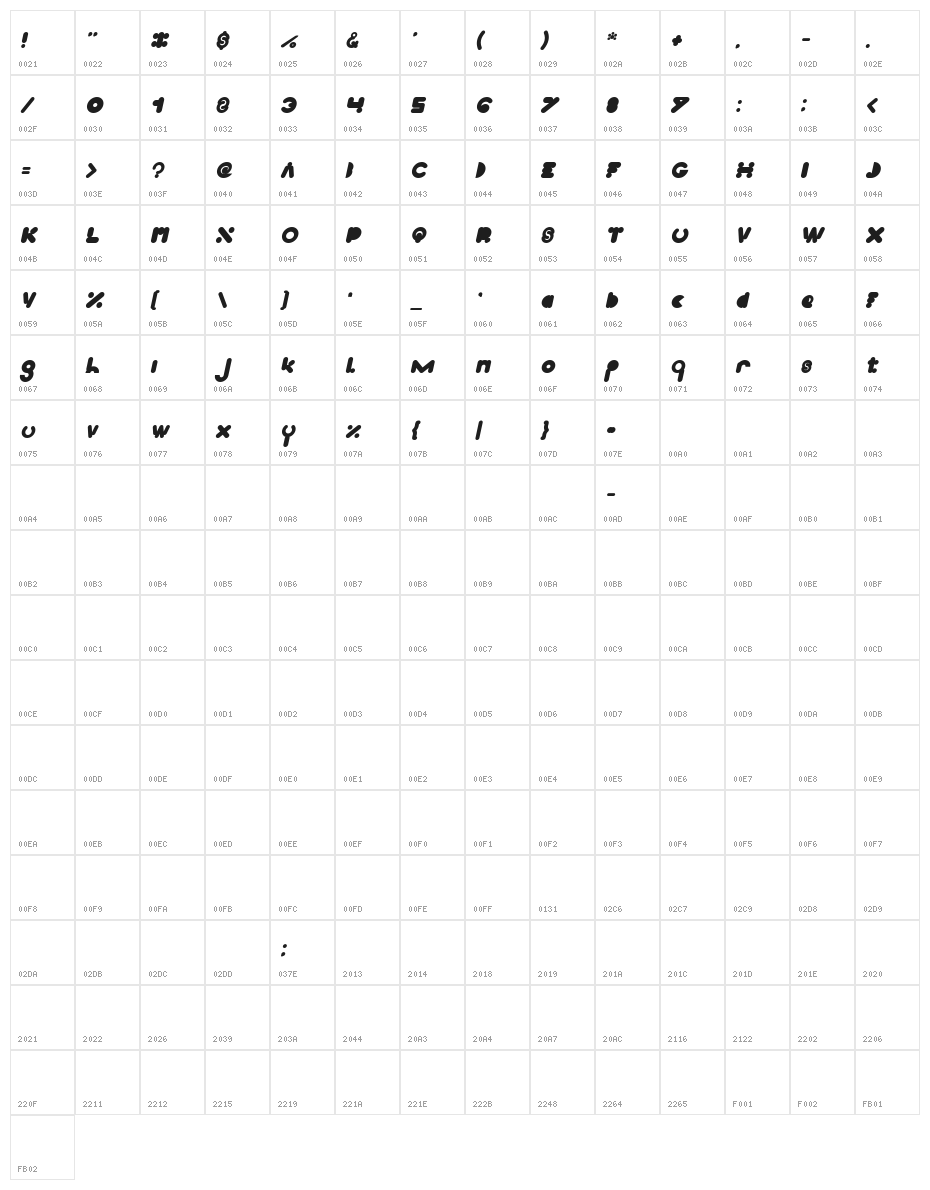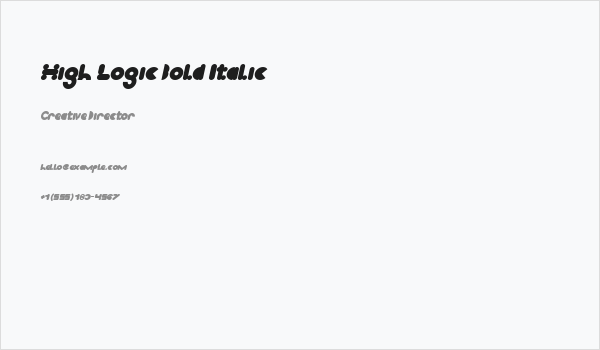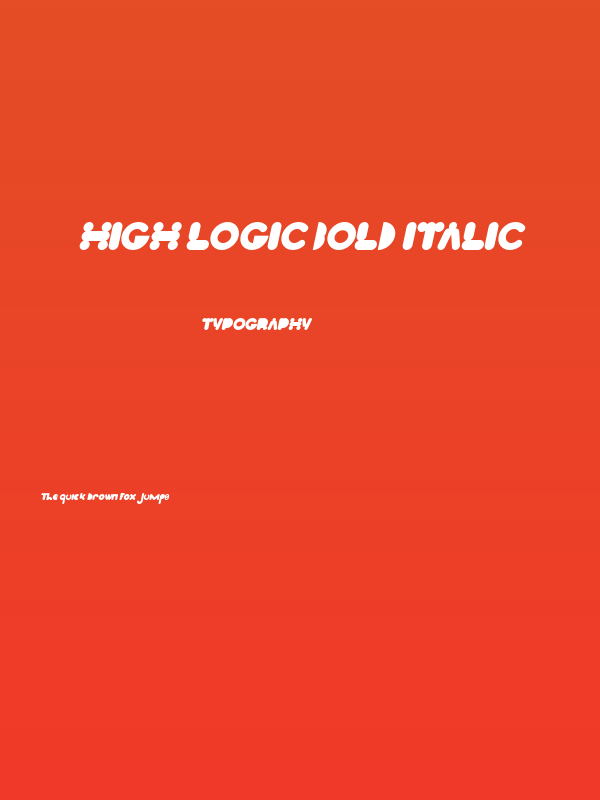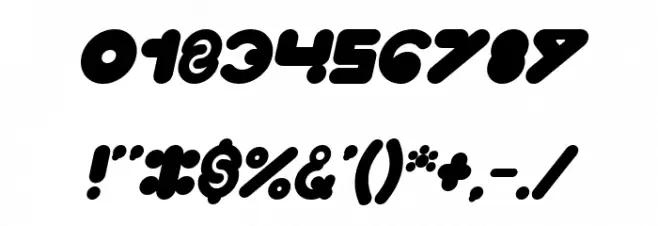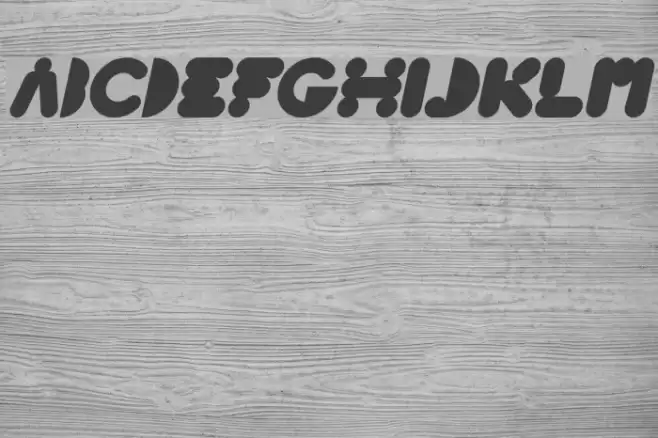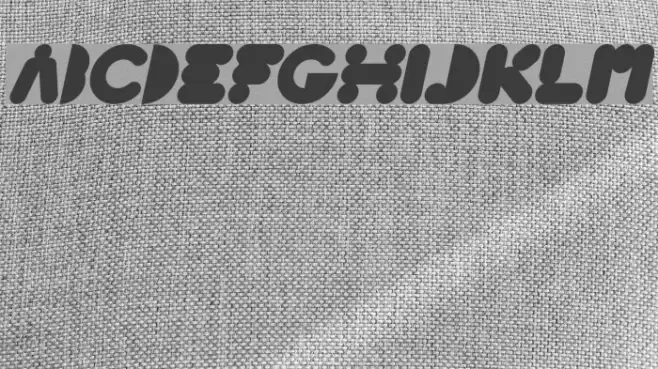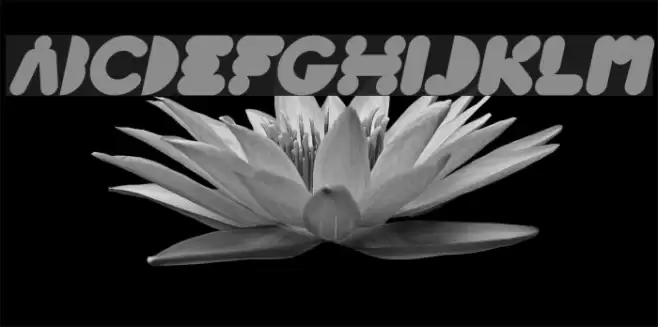
High Logic Bold Italic Font
This font features a bold and playful design with rounded, bubble-like characters that convey a sense of fun and creativity. The letters are thick and have a consistent weight throughout, giving them a strong presence on the page. The italic style adds a dynamic and energetic feel, making it suitable for eye-catching designs. The characters are closely spaced, enhancing the compact and cohesive look of the text. The font includes a full set of uppercase and lowercase letters, numbers, and a variety of special characters, making it versatile for different design needs. Its unique style is ideal for projects that require a bold statement, such as posters, headlines, and branding materials.
| Overall Style | Playful, Modern |
| Proposed Projects | Ideal for posters, headlines, branding materials, and any design requiring a bold, playful touch. |